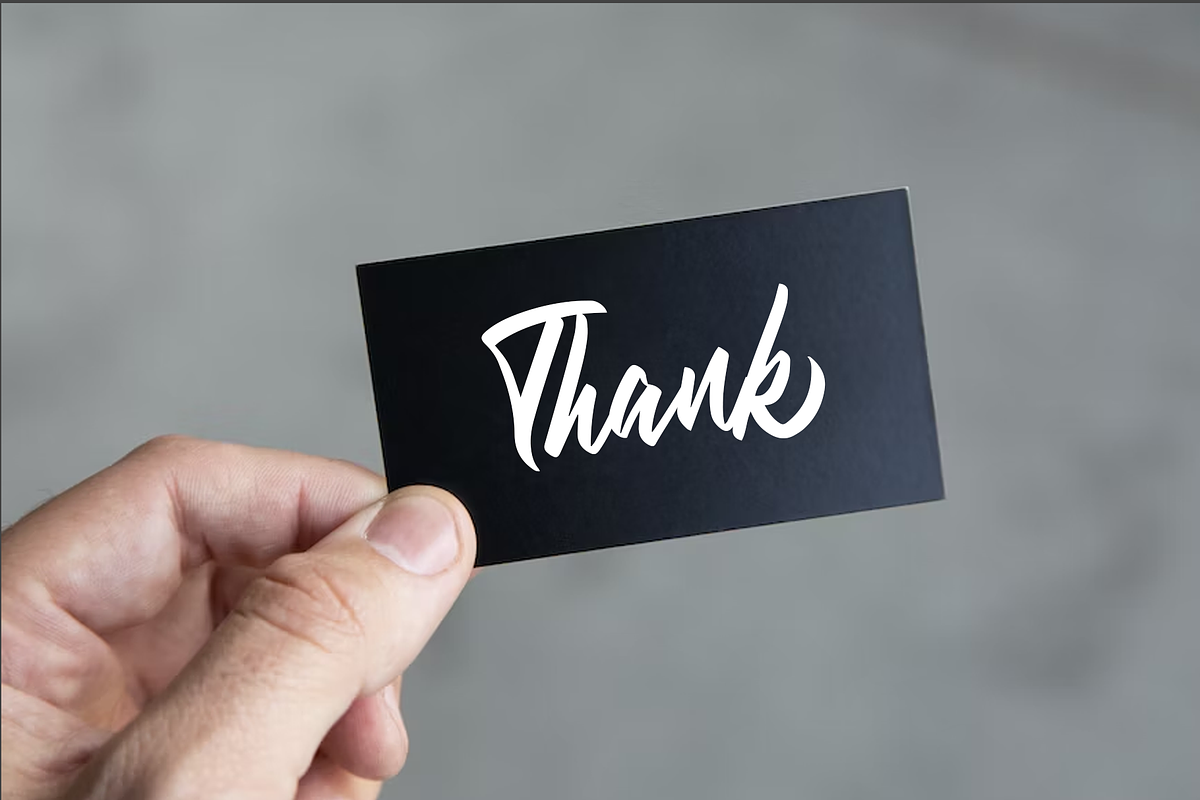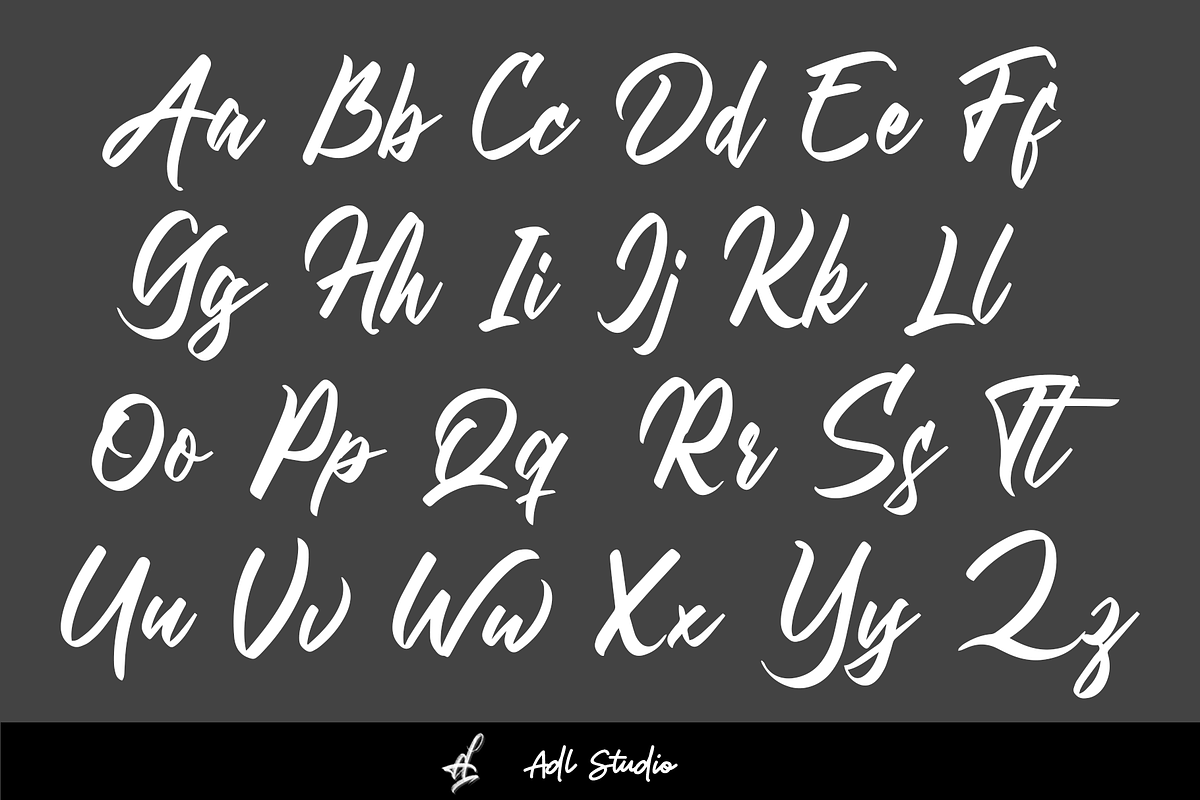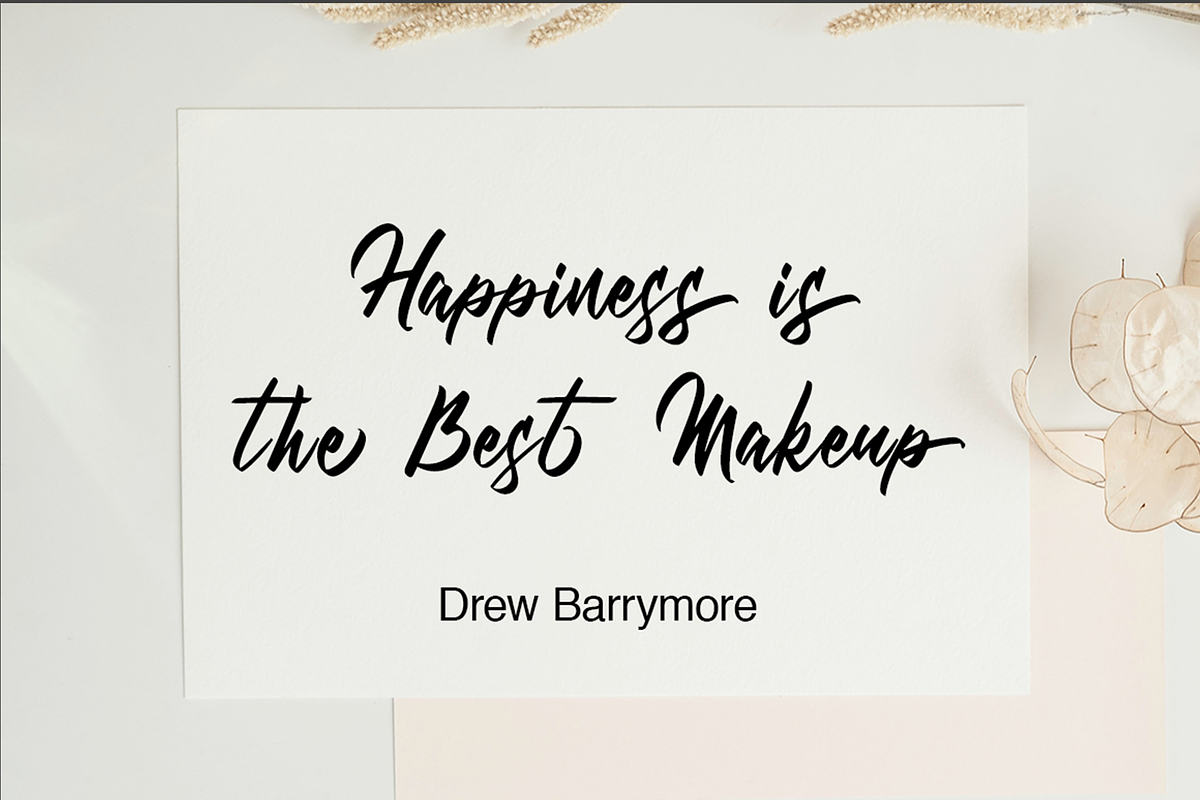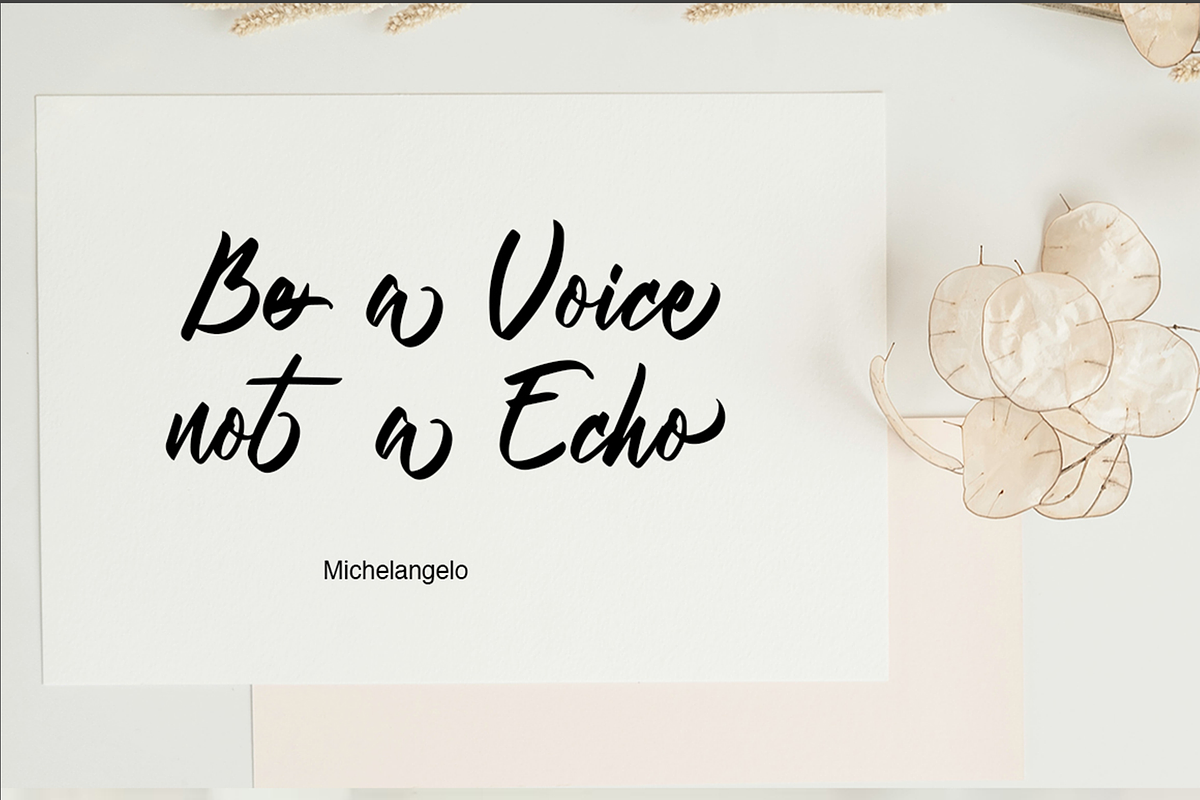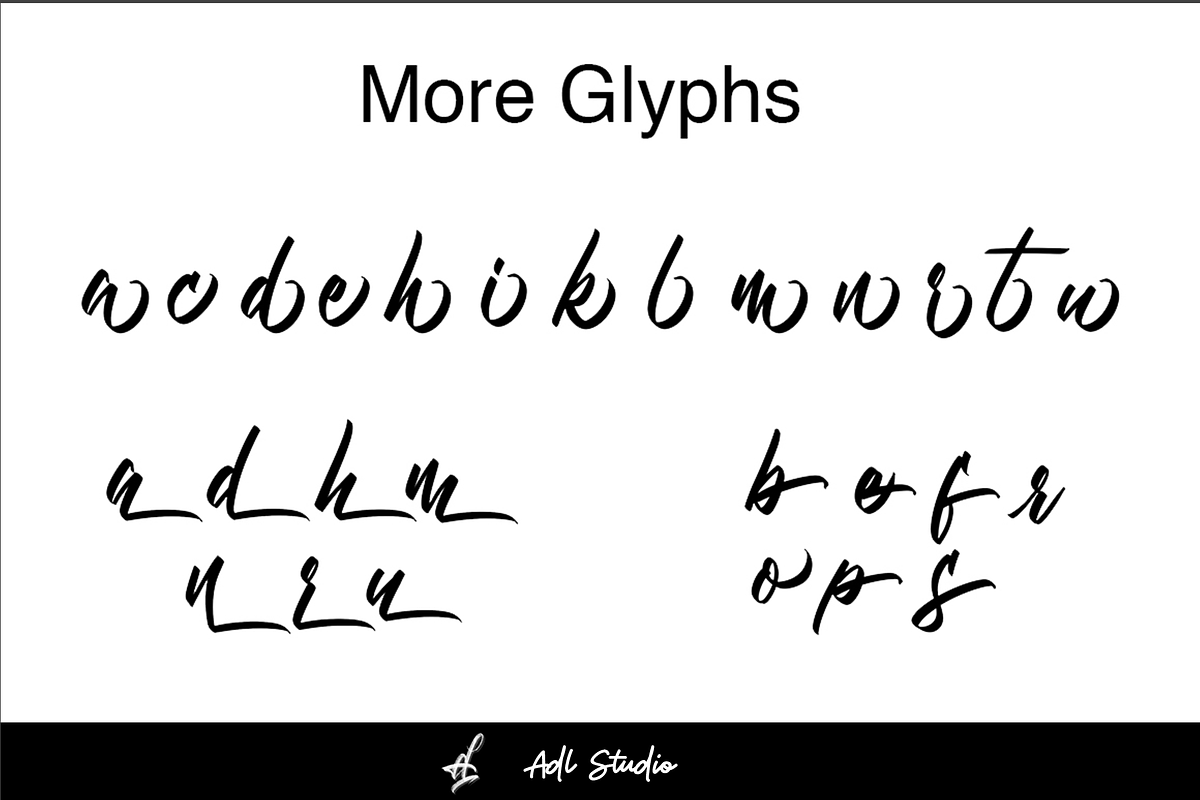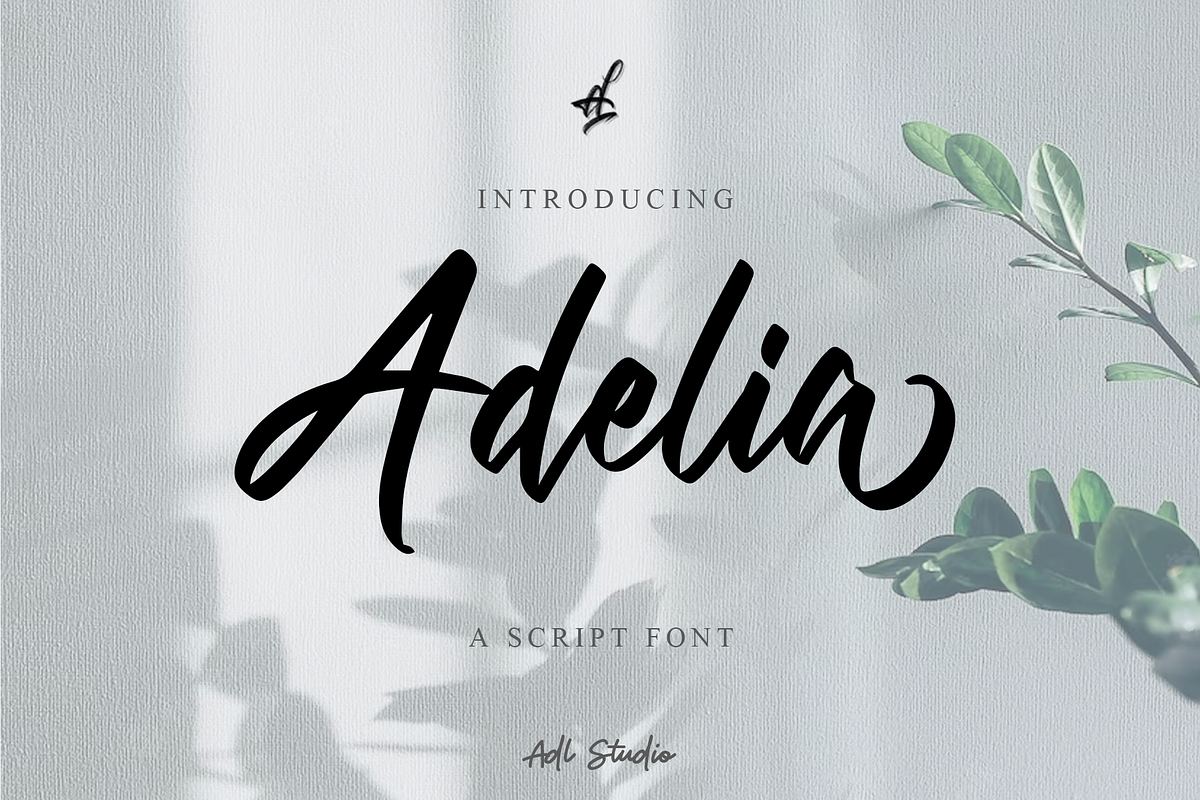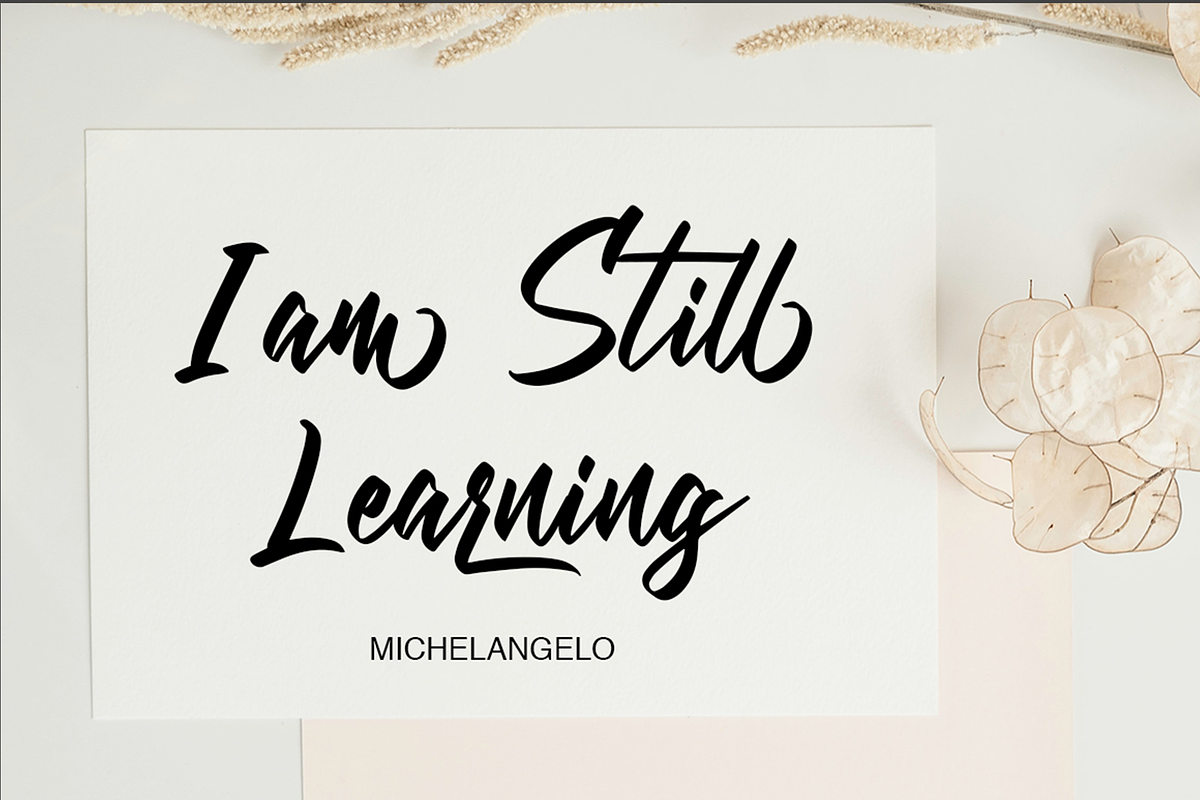
Adelia
Introducing "Adelia" - a unique and elegant font script created exclusively for Creative Market by Adl Studio. This font is the perfect blend of modern and classic styles, featuring bold strokes and delicate curves that will add a touch of sophistication to any project.
With its unique letterforms and versatile design, Adelia is perfect for branding, logos, invitations, packaging, and more. Whether you're creating a wedding invitation or a business card, Adelia is sure to make a lasting impression.